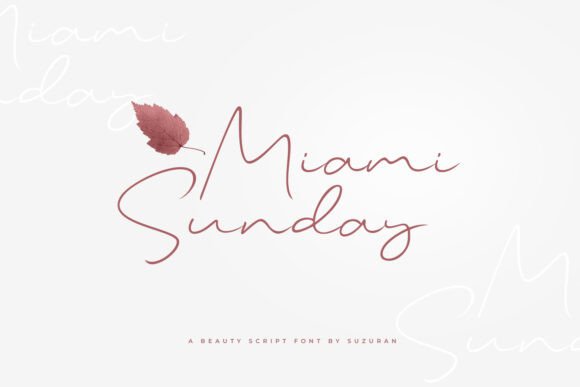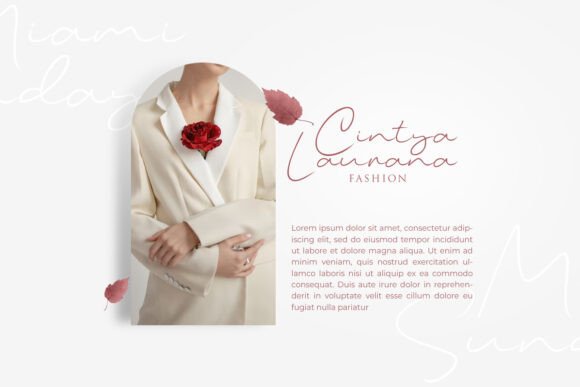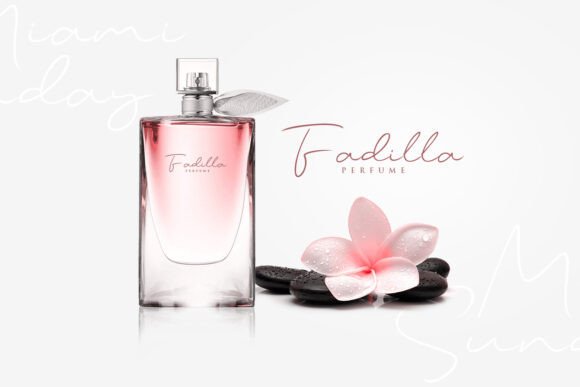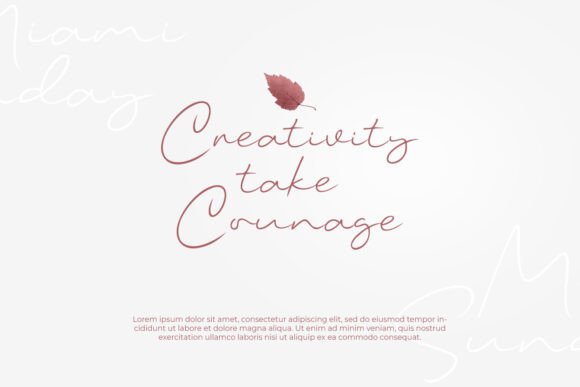
Miami Sunday Font
About the Miami Sunday Font
Elevate your designs with Miami Sunday Font, a font that combines sophistication with readability. Introducing the Miami Sunday font with a fresh and unique script with a beautiful touch that is perfect for your design work and extraordinary design projects. This font is perfect for posters, logos, magazines, book covers, banners and more! Get this amazing font, and use it to create beautiful designs. It can easily be adapted to a very large set of projects, so add it to your creative ideas and watch how it makes it stand out!
Miami Sunday’s playful yet sophisticated script style shines in headlines, logos, and short-form text for branding projects or event posters. Its unique character is ideal for conveying a sense of fun and vibrancy. However, its decorative nature makes it less suitable for body text or UI elements requiring high readability.
Pair Miami Sunday with a clean sans-serif like Lato or Open Sans for a balanced contrast, enhancing its legibility in designs where it’s used for headlines or short phrases. For a more elegant feel, consider pairing it with a classic serif such as Garamond or Playfair Display.
The font projects a bold, friendly personality, working best for brands targeting a youthful, energetic audience. Avoid using it in contexts demanding formality or extreme minimalism.
Miami Sunday Font Usage Examples
Miami Sunday Font Example